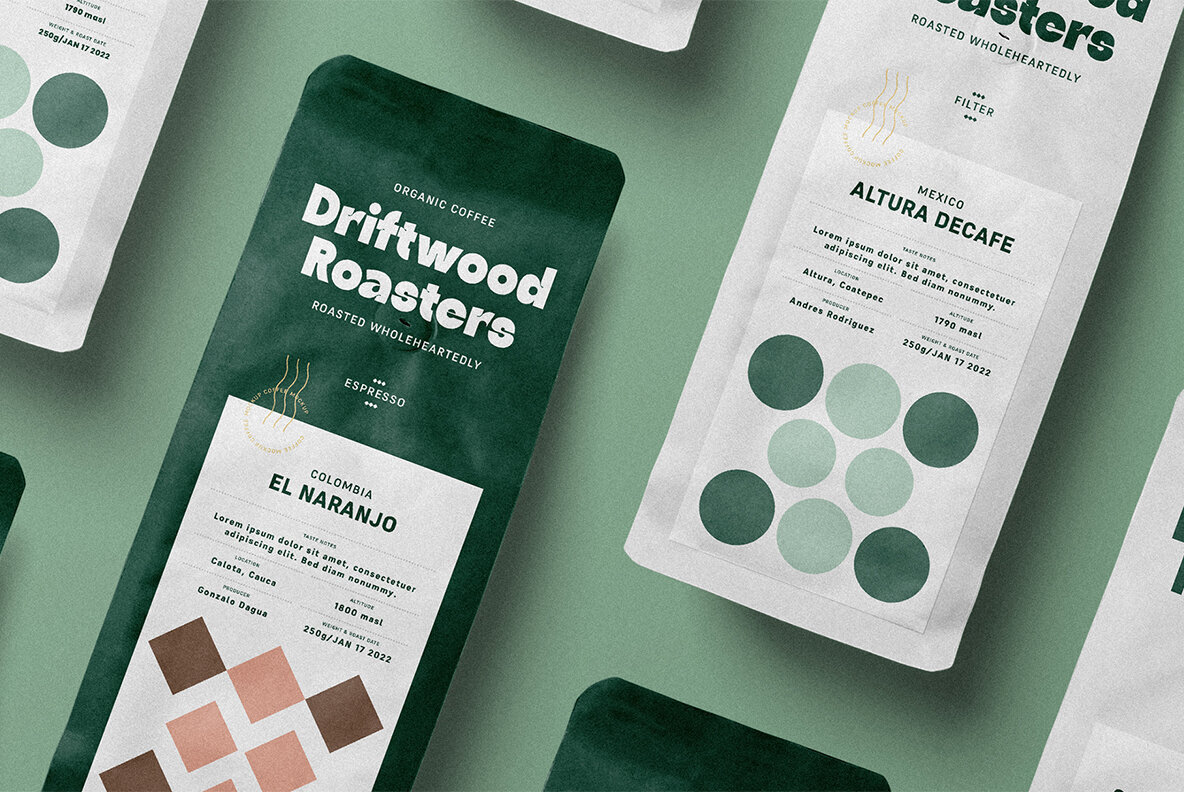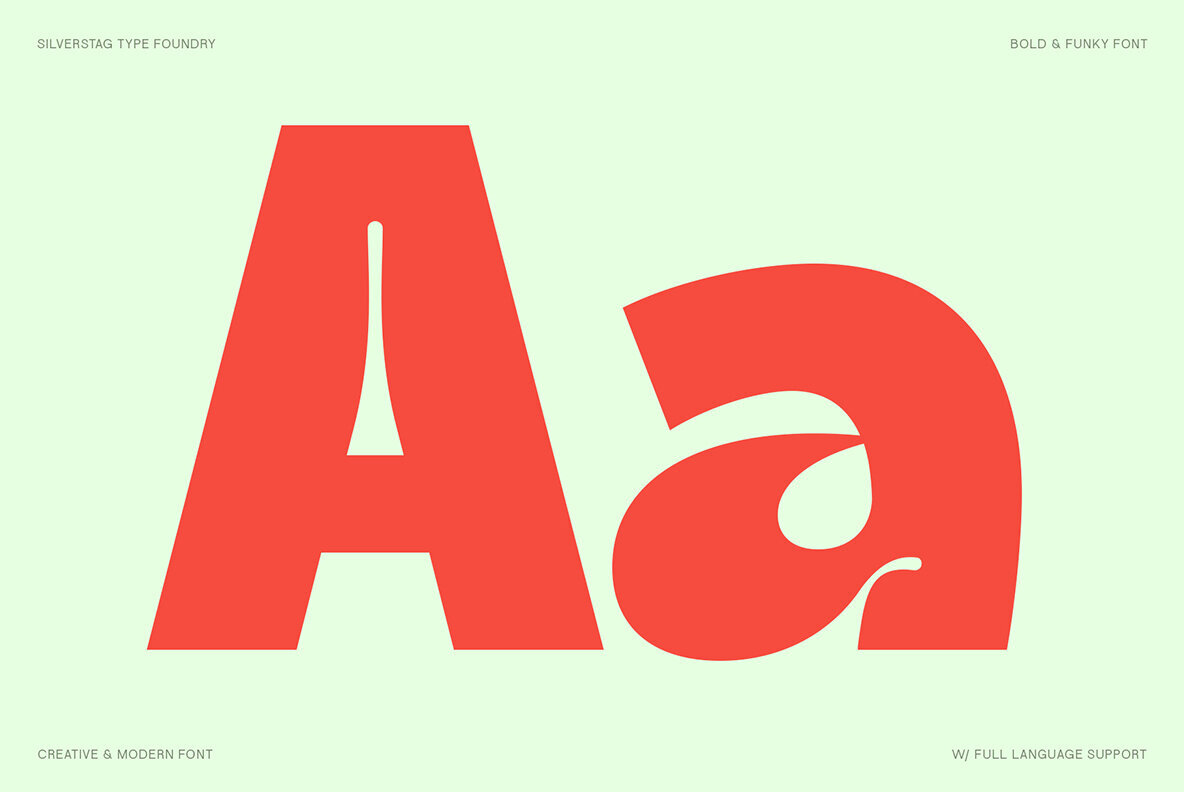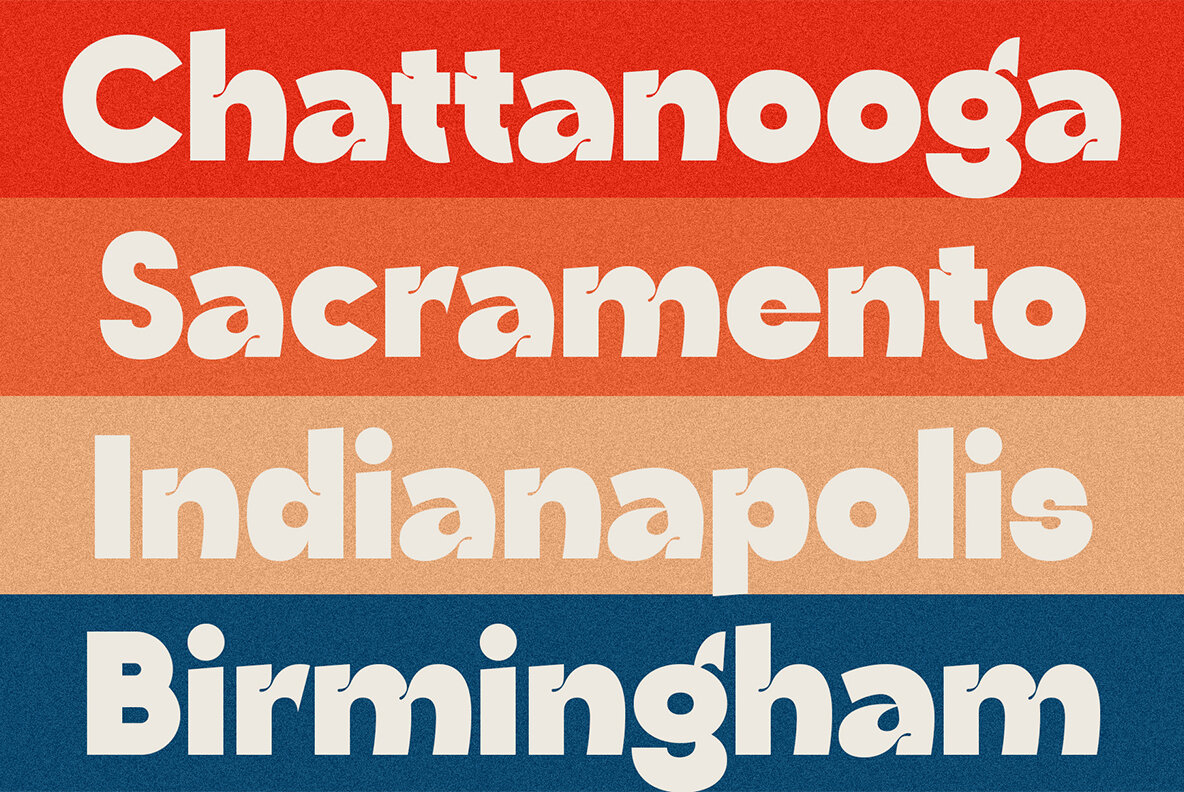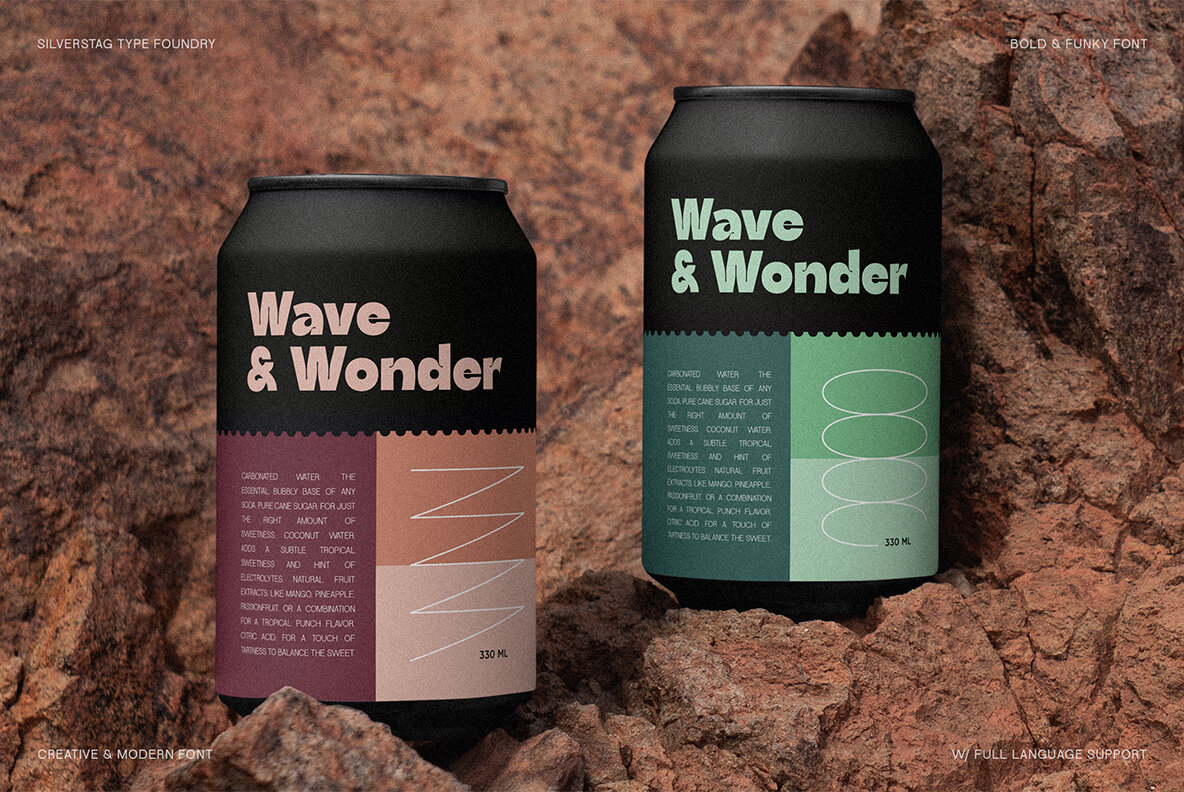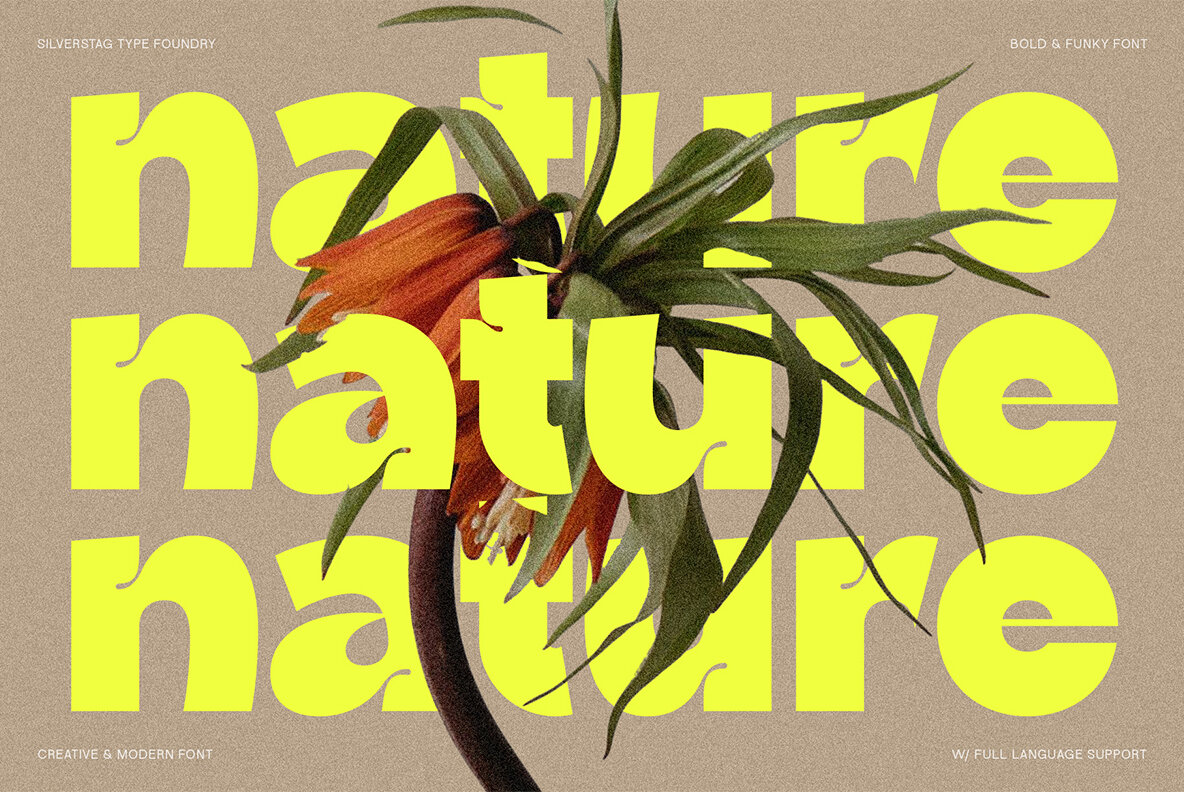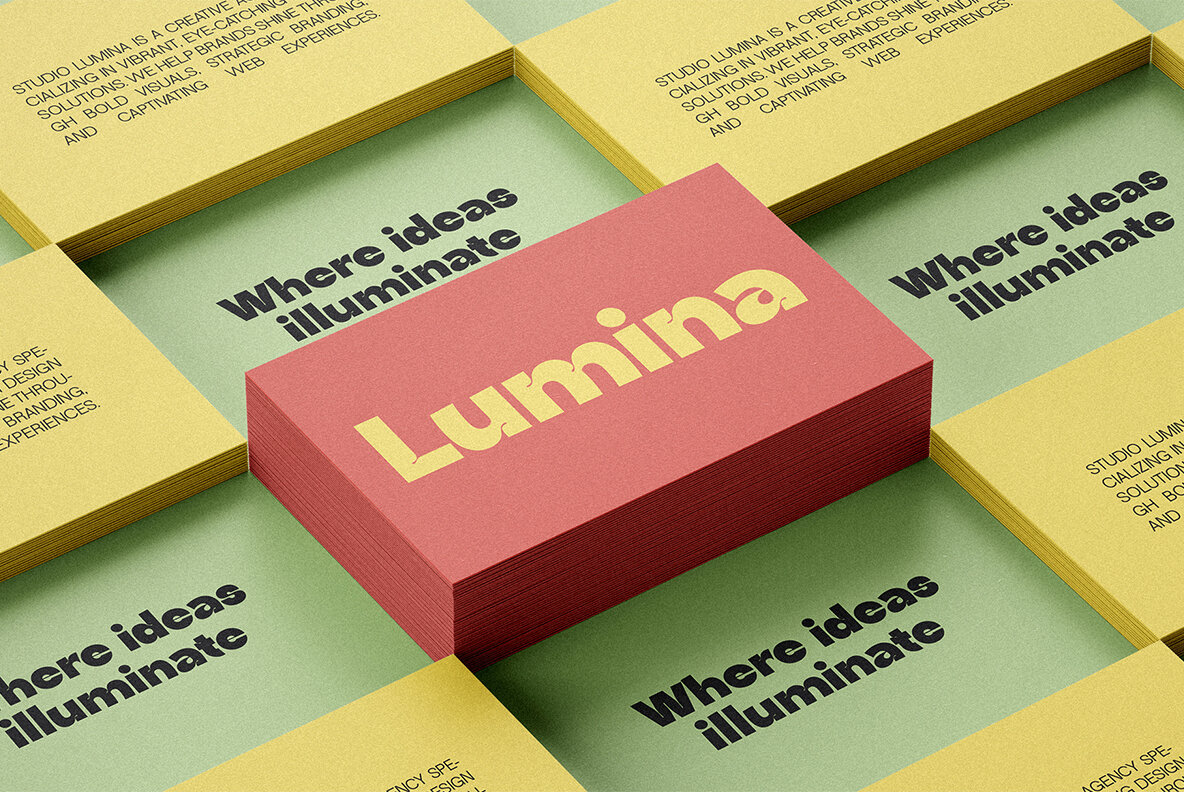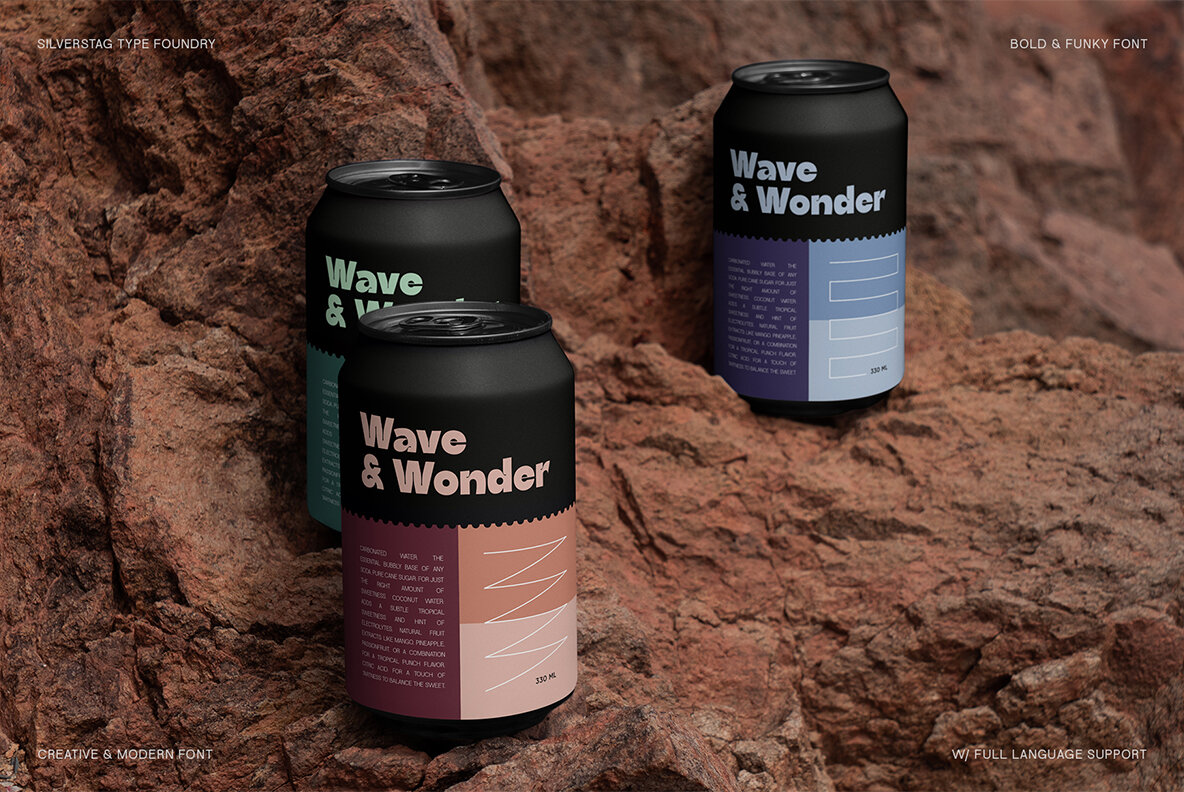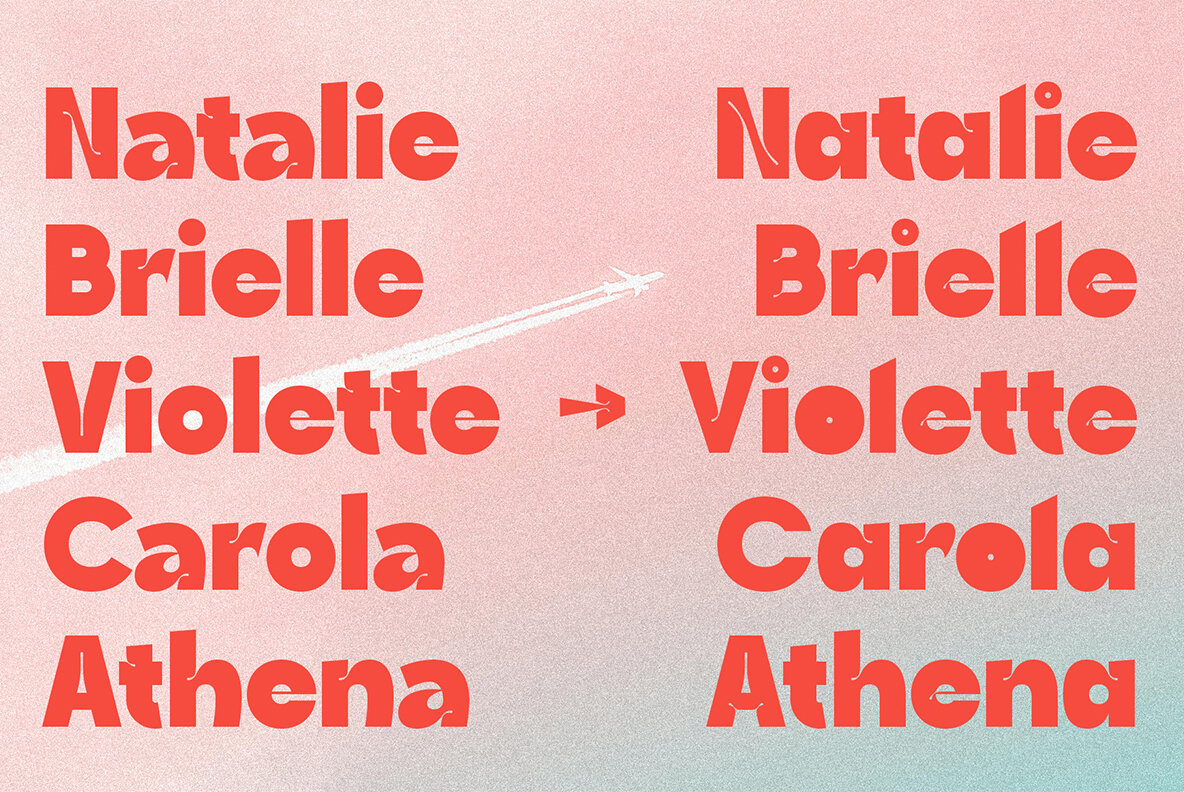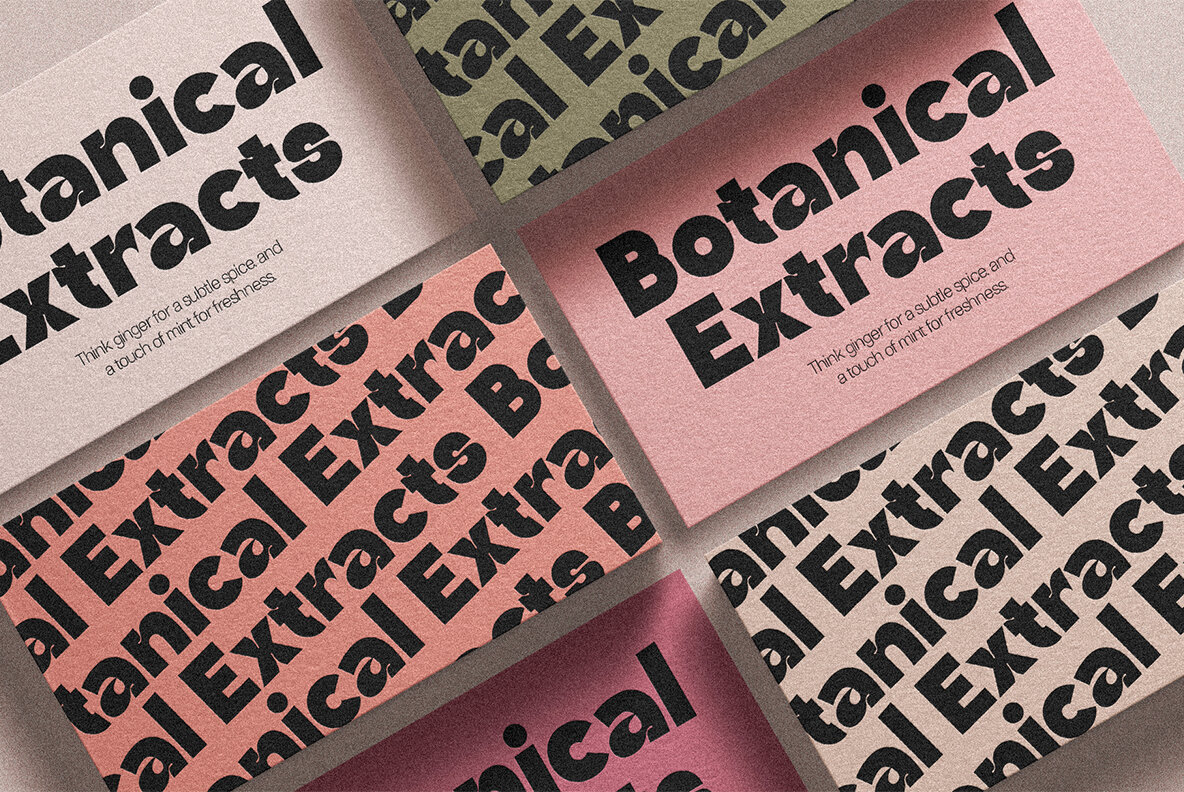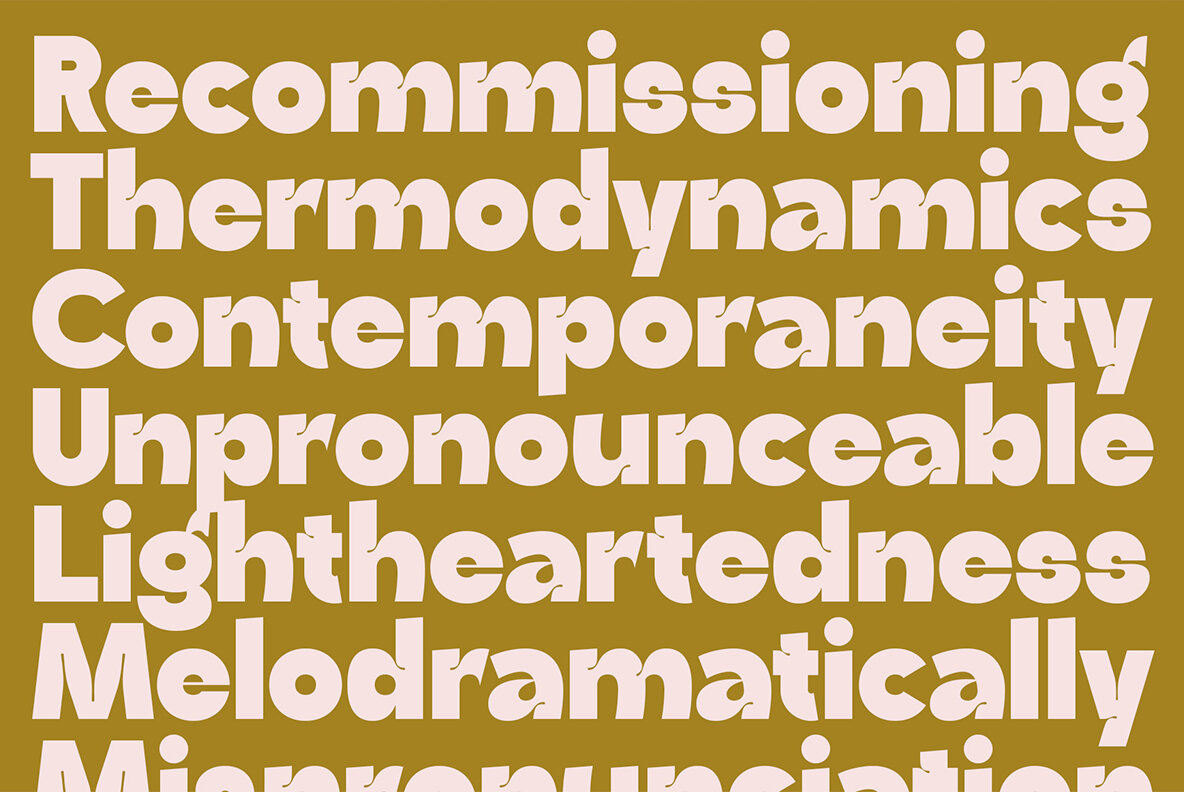
Ingrafts Font
Ingrafts Regular
Get ready to inject some serious personality into your designs with Ingrafts, a brand-new chunky sans serif that packs a playful punch! With its thick strokes, quirky ink traps, and infectious energy, Ingrafts demands attention and refuses to be ignored. Key Features to Elevate Your Designs: Where Ingrafts Shines: Experience the Fun of Ingrafts Forget bland typography! Ingrafts is a celebration of playful design and confident expression. Whether you're aiming for a nostalgic retro vibe or a cutting-edge contemporary look, this font delivers impact with a smile. Download Ingrafts today and start creating designs that stand out from the crowd!Introducing Ingrafts: The Funky Sans Serif with a Bold Attitude